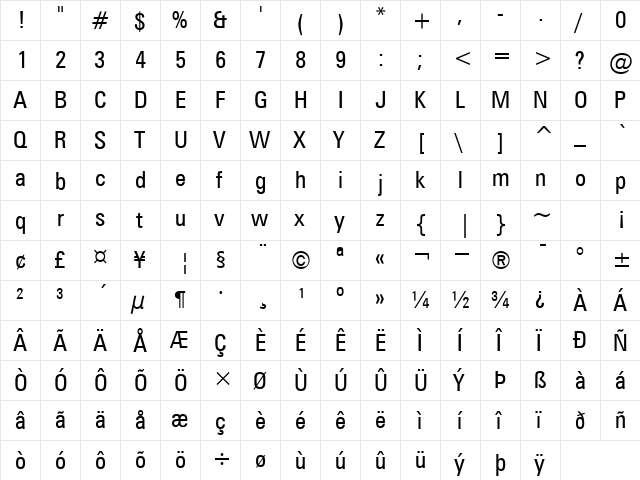
Design Context for 4 Typeface
4 is a composed and adaptable typeface that performs quietly and consistently across a wide range of design contexts.
Pro Tip: Use 4 in both headline and body roles to test its range before committing to a single application.